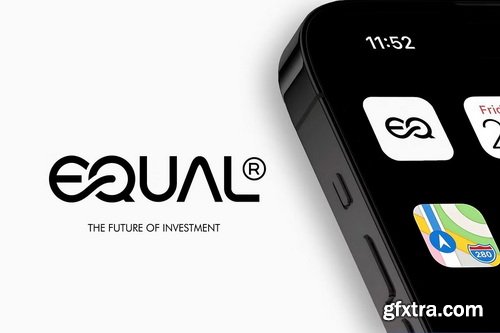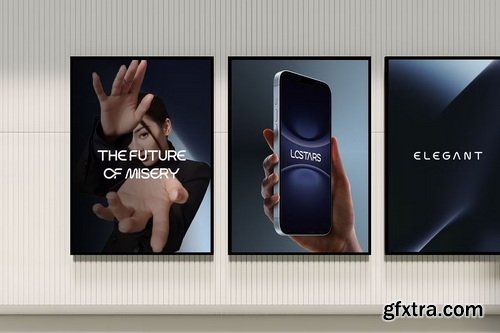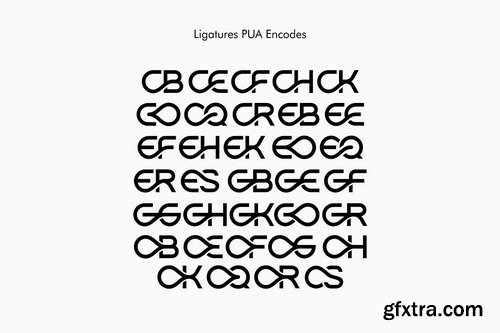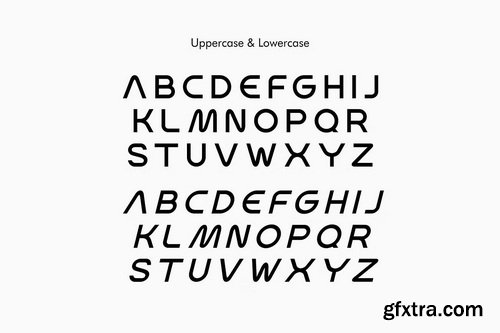
Oqygen is a modern sans serif font with an elegant and bold futuristic look. The letterforms are geometric and clean, giving it a strong contemporary feel that is clearly legible at any size. This bold and assertive style is ideal for Logo Fonts and Branding Fonts for technology companies or AI startups that want to highlight an innovative and future image. The retro-futuristic feel of the Y2K era (Y2k Font) adds to the appeal, making Oqygen a great choice for creating a modern and elegant digital identity (ModernLogo, ElegantLogo).
Oqygen Key Features:
- Modern & Futuristic: Oqygen blends futuristic and minimalist aesthetics thanks to clean sans serif lines and precise geometric shapes.
- Bold & Bold: Bold Fonts' bold characters and Bold Display style make them excellent for large titles or logos, acting as eye-catching display fonts.
- Geometric & Structured: Each letter is designed with perfect geometric construction, creating a precise and modern look (Geometric Fonts) that reflects cutting-edge technology.
- Compact (Condensed): The narrow letter-width ratio (Condensed Font) makes Oqygen appear compact yet powerful, ideal for large text use in limited spaces.